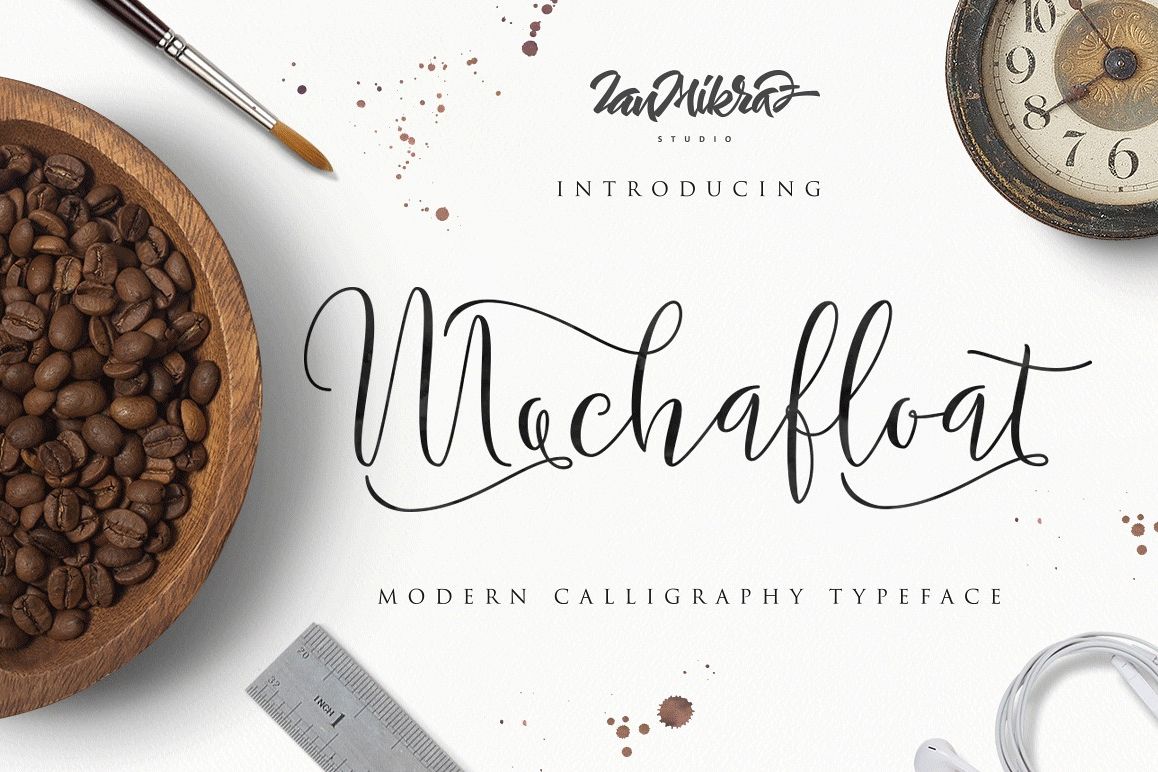
Mochafloat Script
Introducing Mochafloat Script
Mochafloat Script is a new modern calligraphy Typeface Fonts collection from Ianmikraz studio, combines from copperplate to contemporary typeface, classic, beauty and elegant touch.
Mochafloat Script features 380 glyphs and 200 alternate character contain with opentype features. Stylistic Alternates, Standart Ligature and more.You can access all those alternate characters by using OpenType savvy programs such as Adobe Illustrator, Adobe InDesign and CorelDraw X6-X7.
Mochafloat Script is suitable for Apparel Brand, any greeting cards, Painting design style, or any design that needs natural and personal touch. Mix and match the alternate characters to add an attractive message to your design.
Features of Mochafloat Script is;
-Swash Alternates
-Standart ligatures
-Stylistic Alternates
-Stylistic sets
-Contextual Alternates